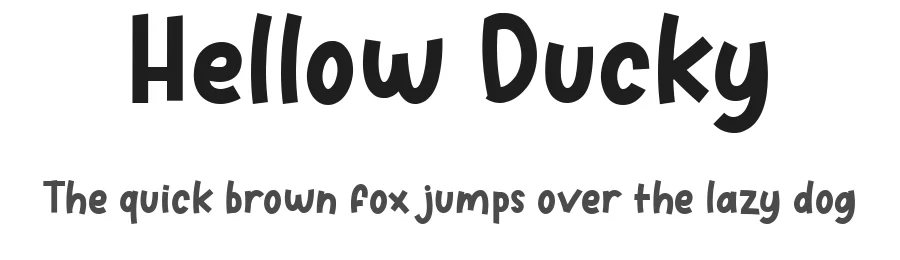
About Emoubee Font
Emoubee font is good for designing wedding invitations, birthday invitations, menus and designs that require a handwritten display and others.
Emoubee Font is a decorative font that shines as a display or heading face. Pair it with a clean sans-serif or serif font for body text β the contrast creates a clear hierarchy while the two styles stay balanced and easy to read.
Emoubee Font